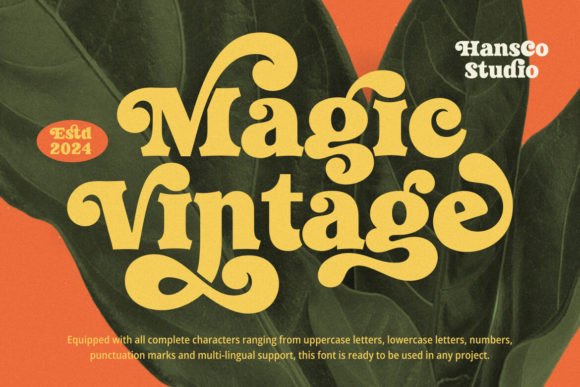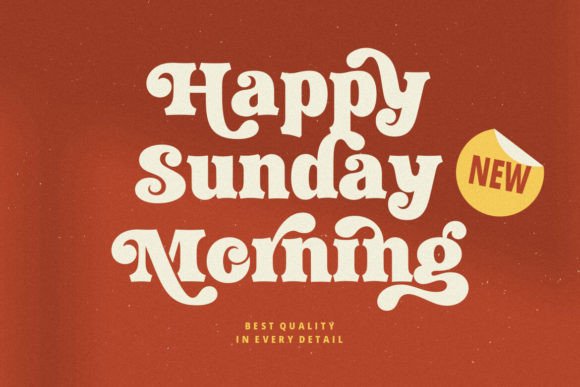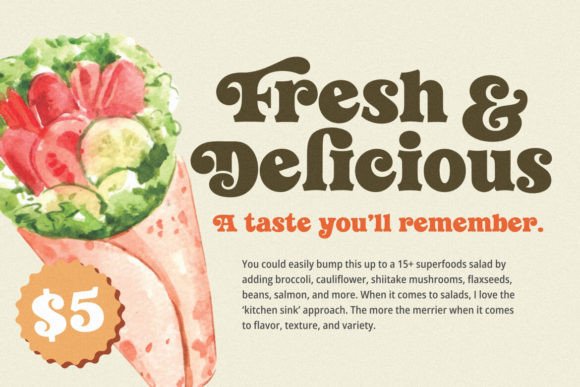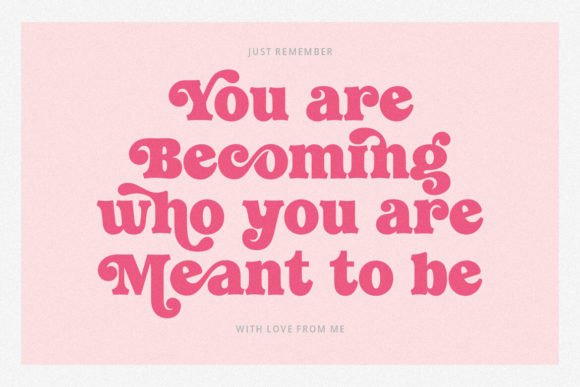
Magic Vintage Font
About the Magic Vintage Font
Discover the charm of Magic Vintage Font. This font is a perfect blend of modern aesthetics and classic appeal. Magic Vintage is a bold retro serif font that encapsulates the essence of vintage design. With its strong, confident letterforms and timeless charm, it evokes nostalgia and elegance. Perfect for posters, logos, and branding projects, Magic Vintage adds a touch of retro flair to any creative endeavor.
Its bold, confident strokes make it ideal for headlines, logos, and short impactful statements in branding materials and posters. However, its strong character and relatively large x-height make it less suitable for body text or lengthy paragraphs, where readability would suffer. Consider using it sparingly to create visual impact.
Magic Vintage’s retro-inspired personality pairs well with clean sans-serif fonts like Helvetica or Open Sans for a balanced contrast. For a more playful feel, a rounded sans-serif or even a hand-drawn script could work well, providing visual interest without overwhelming the vintage aesthetic. Avoid pairing it with other heavily ornamented or decorative fonts.
The font projects a bold, nostalgic, and slightly rebellious personality, suitable for brands aiming for a vintage-inspired aesthetic with a modern twist. Think vintage clothing lines, craft breweries, or record labels seeking to evoke a sense of classic style with a contemporary edge.
Magic Vintage Font Usage Examples
Magic Vintage Font Example